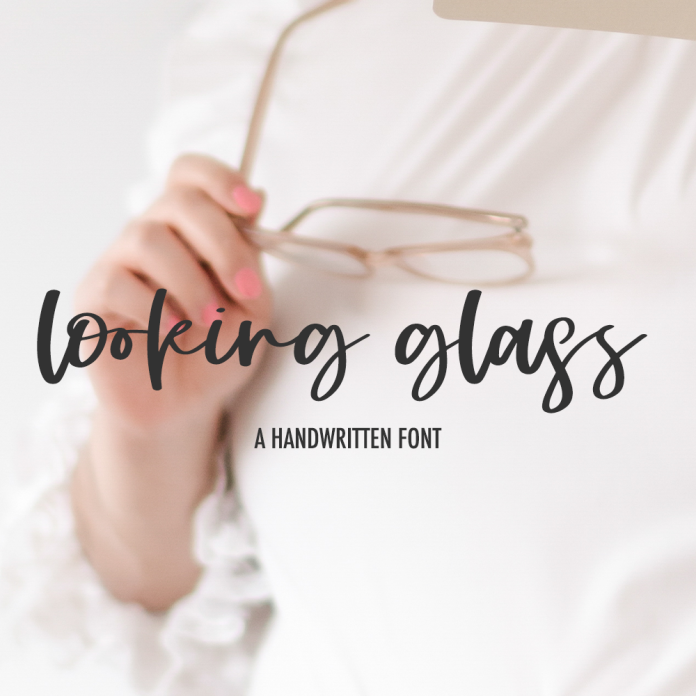
Looking Glass Script Font
Introducing Looking Glass Script, a handwritten font with a few ligatures. Looking Glass has thicker lines, reminiscent of a marker or sharpie, and has a slight feminine bounce. Looking Glass Script is best for: - logos + branding, like beauty, cosmetics, and health brands - website design + website accents - think design blogs, travel blogs, fashion blogs, & more - clean print design, like magazines + flyers - header elements that need handwritten touch - quote graphics for social media Looking Glass includes: - full upper + lowercase characters - numbers + punctuation - 14 double letter ligatures - bb, cc, dd, ee, ff, gg, ll, mm, nn, oo, pp, rr, ss, tt - Western European Language Support - PUA-encoding